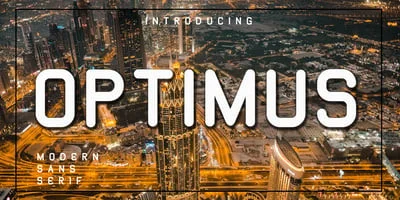
Optimus Font
The Optimus Font excels in various design applications including optimization software branding, peak performance marketing, premium excellence communications, robotics technology identities, futuristic automotive signage, advanced AI system interfaces, transformative business solutions, leadership excellence materials, optimal efficiency campaigns, and cutting-edge technology projects that demand optimal sophistication and prime performance elegance.
What makes the Optimus Font exciting is its powerful embodiment of optimal performance and transformative excellence through letterforms that capture the essence of peak efficiency and prime functionality. This typeface demonstrates exceptional strength through carefully engineered characters that suggest the precision of advanced robotics, the optimal performance of prime systems, and the transformative power that comes from achieving maximum potential. The font's optimal personality makes it perfect for technology leaders and performance organizations seeking to communicate excellence, efficiency, and the kind of prime quality that represents the absolute best possible outcome through typography that literally optimizes content with peak performance precision.
The Optimus Font family typically includes powerful weight variations that enhance the optimal aesthetic, featuring strong proportions and extended character sets optimized for technology applications and performance communications. These family options often include prime alternates, optimization symbols, and excellence decorative elements that provide designers with comprehensive tools for creating authentically optimal typography that celebrates peak performance while maintaining contemporary design appeal and technological sophistication.
Technology professionals and performance-oriented organizations consistently select Optimus Font for projects requiring typography that communicates optimal excellence and transformative capability. This typeface delivers exceptional performance in technology marketing, leadership branding, and optimization communications where establishing superiority and demonstrating peak performance is essential for market leadership. The font's optimal character makes it particularly effective for AI and robotics applications. Download Optimus Font today to access this prime typeface that transforms communications with its optimal precision and excellence sophistication, creating compelling performance experiences that demonstrate the highest standards of technological achievement while maintaining the transformative power that defines truly optimal solutions and prime performance excellence.